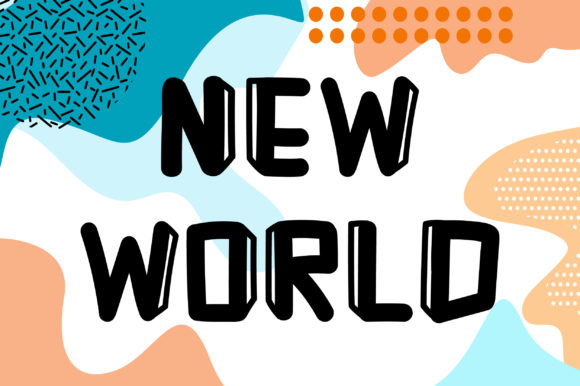
Unleash the Power of Expression with New World Font - The Epitome of Readability and Design Excellence
In a world saturated with information, legibility reigns supreme. New World Font, a captivating display font crafted by PearlyDaisy, rises above the noise, offering an unparalleled experience of clarity and elegance. Whether you're creating a stunning website, designing eye-catching posters, or crafting impactful presentations, New World Font empowers you to communicate with impact.
Immerse yourself in the world of New World Font, a visual symphony that dances before your eyes. Its distinct style, reminiscent of a bygone era, adds a touch of timeless charm to any project. With its bold strokes and sweeping curves, New World Font commands attention, inviting readers to delve into your content and explore the depths of your ideas.
Beyond its aesthetic appeal, New World Font embodies the essence of readability. Its carefully crafted letterforms ensure effortless comprehension, even for large blocks of text. Its generous spacing and kerning prevent visual clutter, creating a seamless reading experience that captivates and engages your audience.
Elevate Your Projects with New World Font, the Ultimate Storyteller
New World Font is more than just a collection of characters; it's a storytelling tool that brings your creations to life. Its bold presence adds a layer of intrigue and depth to your designs, transforming ordinary words into captivating narratives. Whether you're crafting a captivating blog post, designing a brochure that leaves a lasting impression, or creating social media graphics that demand attention, New World Font amplifies your message and makes it unforgettable.
Immerse yourself in a world of endless creative possibilities with New World Font. Its versatile nature makes it the perfect companion for a diverse range of projects. From whimsical invitations and greeting cards to sophisticated business documents and presentations, New World Font seamlessly adapts to your vision, adding a touch of elegance and professionalism.
New World Font: A Journey Through Time and Space
With New World Font, embark on a journey through history, where classic design elements blend with modern aesthetics. Its vintage charm evokes a sense of nostalgia, while its contemporary touches ensure it remains relevant and impactful. New World Font bridges the gap between the past and the present, creating a timeless masterpiece that resonates with audiences of all ages.